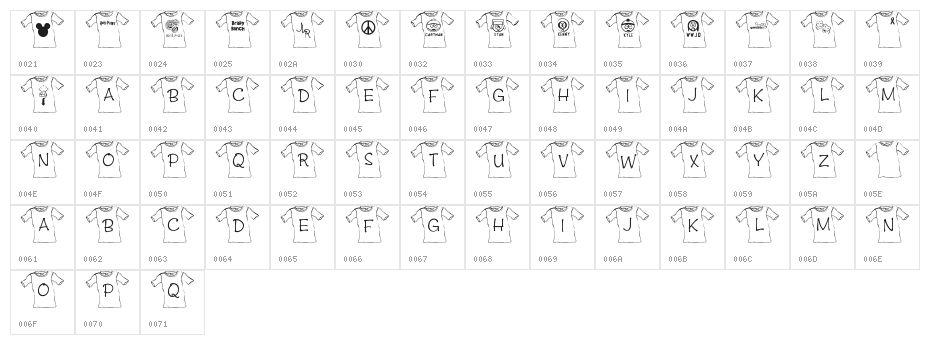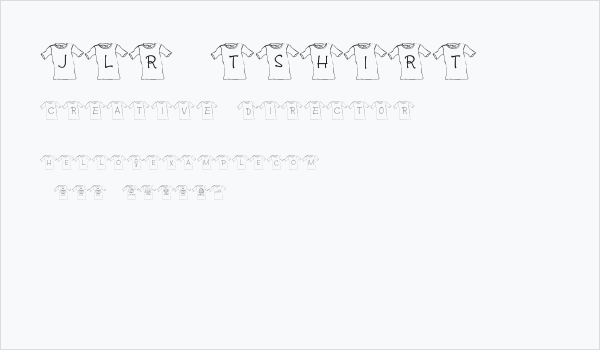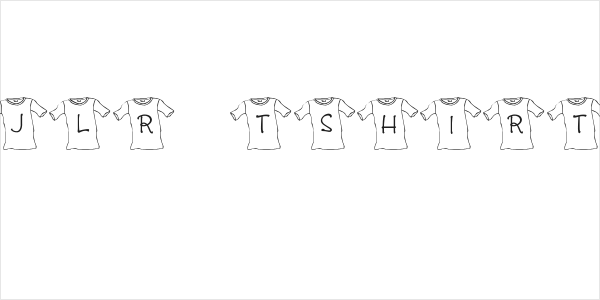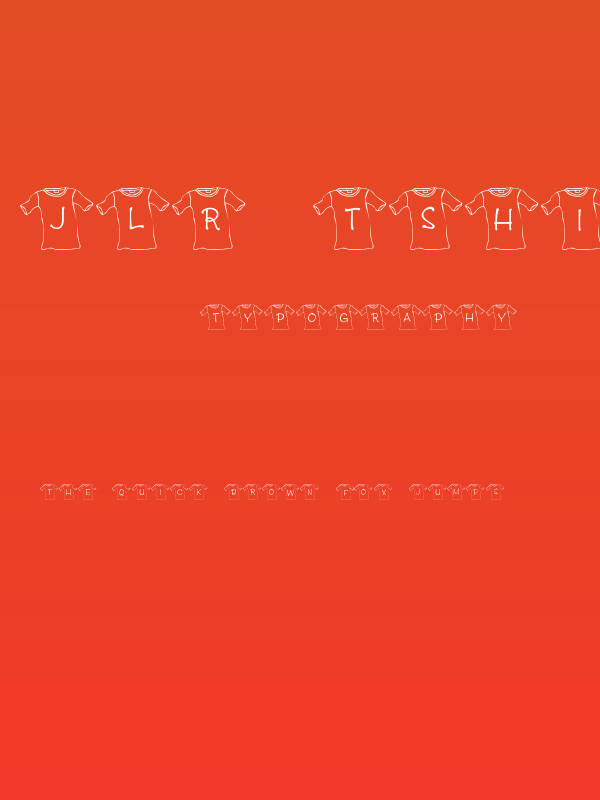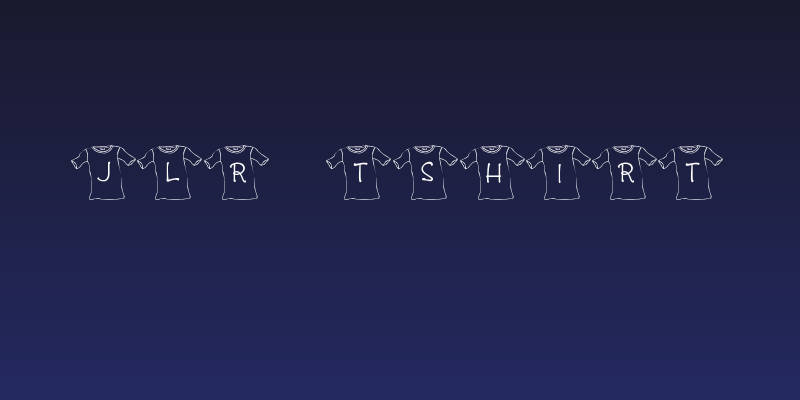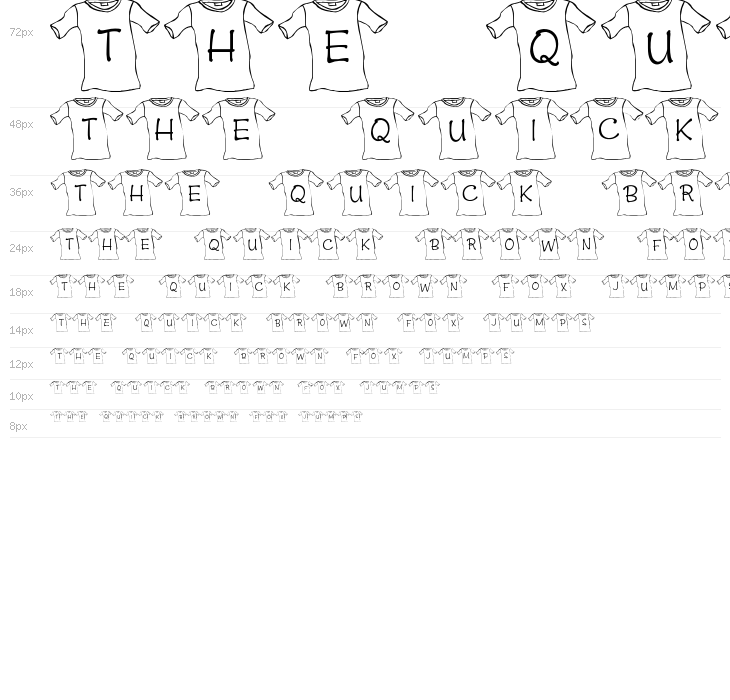
JLR T-Shirt Font
JLR T-Shirt Description
This font is characterized by its playful and casual style, with each letter displayed on a t-shirt graphic. The uppercase letters are bold and clear, making them easily readable. The design is unique, incorporating a sense of fun and creativity, which is ideal for informal and lighthearted projects. The font's style is consistent across all characters, maintaining a uniform appearance that is both engaging and visually appealing. The use of t-shirts as a backdrop adds a whimsical touch, making it suitable for projects that aim to convey a sense of fun and approachability.
| Use Case | Logos, Posters, Merchandise |
| Proposed Projects | Ideal for children's clothing designs, playful branding, casual event posters, and fun social media graphics. |